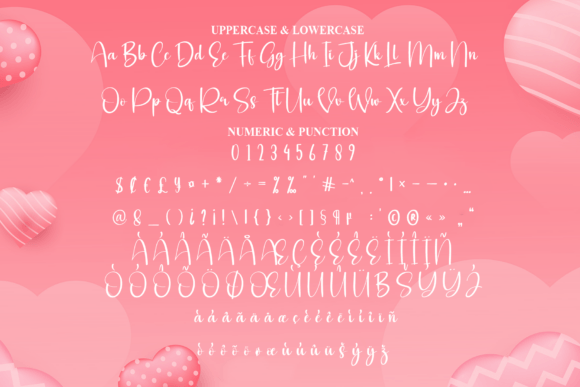
Valentine Stories Font Font
Valentine Stories is a flowing handwritten font, described by an elegant touch, perfect for your favorite projects. Fall in love with its incredibly distinct and timeless style and use it to create spectacular designs!